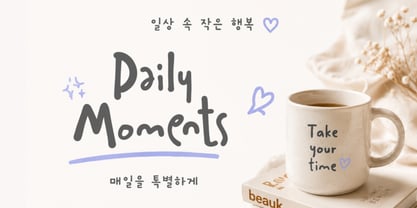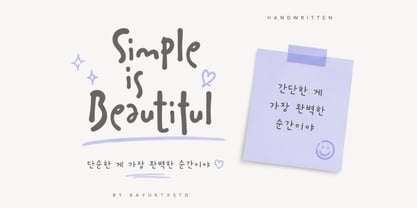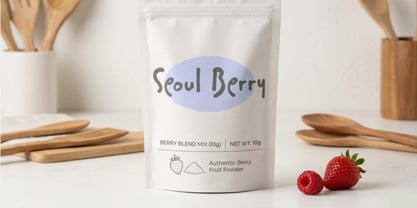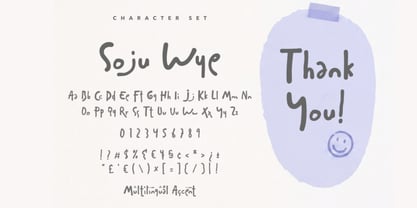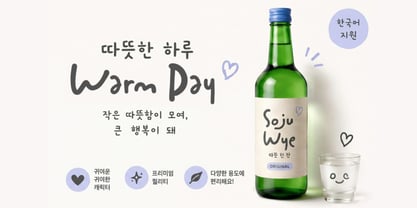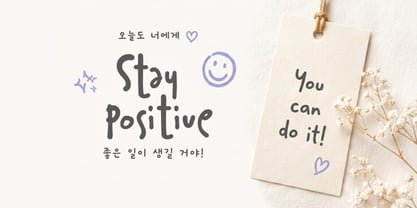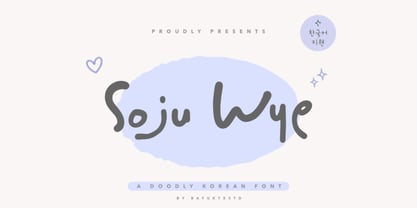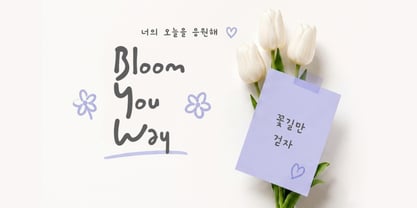
Soju Wye
Soju Wye – Doodly Korean Typeface
Soju Wye a Doodly Korean Typeface is a soft and playful handwritten font inspired by modern Korean aesthetics, casual doodle lettering, and minimal contemporary design. Featuring smooth curves, natural handwritten strokes, and charming irregular details, this typeface creates a warm, friendly, and premium visual atmosphere.
Carefully crafted with a balance of simplicity and personality, Soju Wye combines expressive hand-drawn forms with a clean and aesthetic composition. Each character is designed to deliver a relaxed and authentic handwritten feel while maintaining readability and visual harmony across creative layouts.
Inspired by Korean café culture, pastel stationery, cozy lifestyle branding, and modern social media visuals, Soju Wye brings a soft and artistic touch to every project. Its doodly style creates a cute yet elegant appearance that feels both trendy and timeless.
With its versatile and modern aesthetic, Soju Wye is perfect for creative projects that require a playful, premium, and visually engaging handwritten style.
Key Features :
* Uppercase & Lowercase Characters
* Numerals & Punctuation
* Multilingual Support
* PUA Encoded & OpenType Features
* Soft Doodly Handwritten Style
* Korean Inspired Aesthetic
* Clean & Minimal Appearance
* Smooth & Friendly Letterforms
With Soju Wye a Doodly Korean Typeface, your designs achieve a soft, aesthetic, and modern handwritten look—perfect for creating trendy, playful, and visually memorable creative projects.